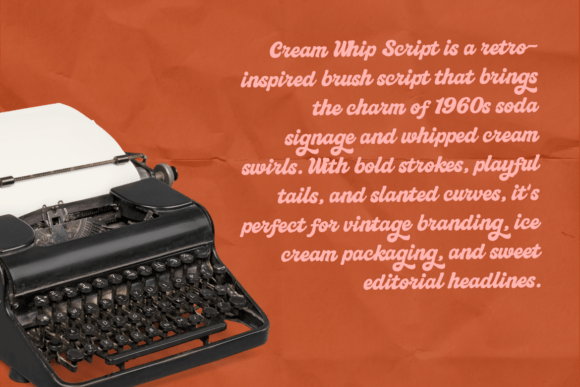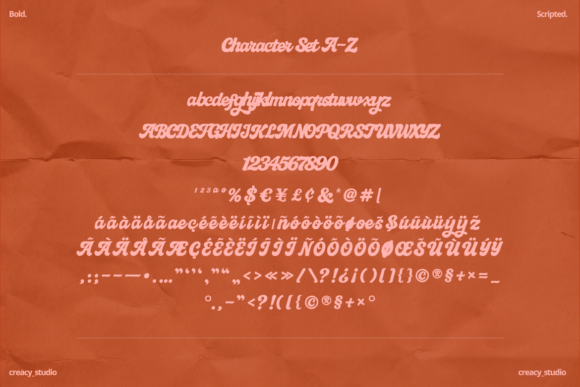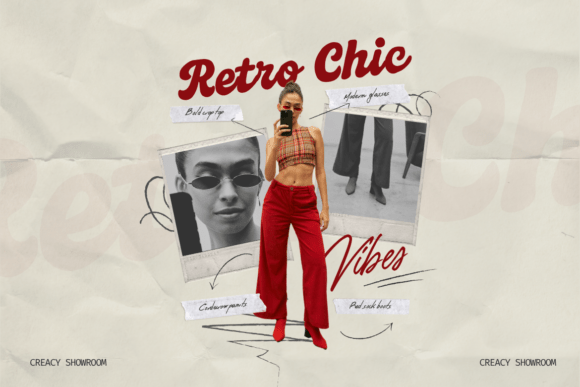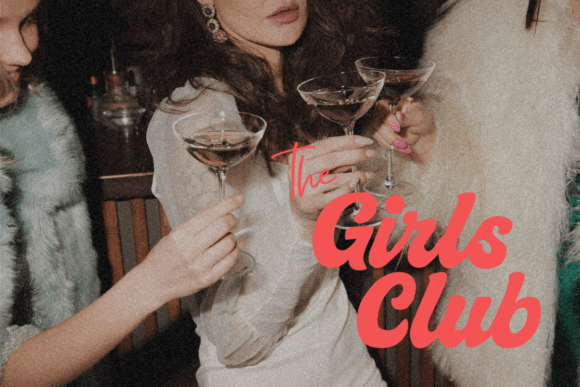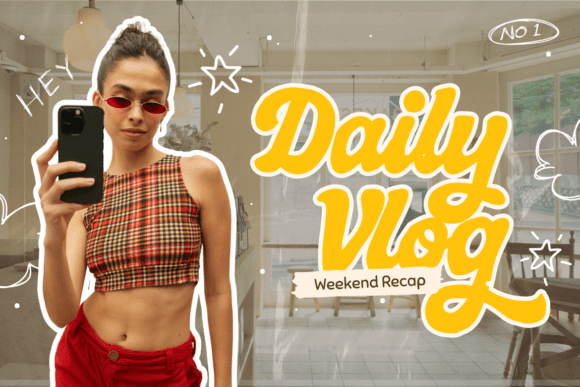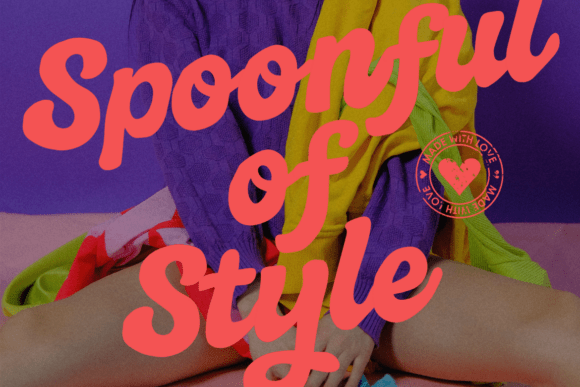
Introducing Cream Whip Script: The Retro Font that Adds a Touch of Vintage Charm to Your Designs
Are you looking for a font that can transport your designs back to the enticing era of vintage soda parlors and garnished pastries? Look no further than the Cream Whip Script, a bold, retro brush typeface that is sure to add a playful yet alluring essence to your creative pursuits. With its voluptuous curves, delicate ink traps, and affable rightward slant, this font is the perfect choice for designers and crafters who want to add a touch of nostalgia to their work.
A Font that Dances with Nostalgia
The Cream Whip Script font is designed to evoke the feeling of a bygone era, when life was a little sweeter and a little more carefree. Its robust strokes and terminal flourishes cultivate each character, birthing an exclusive rhythm and coziness that is seldom seen in common typefaces. Whether you’re working on a branding project, packaging design, logo creation, headline, or poster display, this font is sure to make a strong impression and leave a lasting impact on your audience.
A Meticulous Design that Exudes Finesse
One of the standout features of the Cream Whip Script font is its meticulous design. The delicate ink traps and fluid curves of the letters are reminiscent of whipped cream dollops, giving the font a lighthearted and playful feel. The affable rightward slant of the letters adds a sense of movement and energy to the font, making it perfect for designs that require a sense of dynamism and creativity.
A Font that is More than Just a Typeface
The Cream Whip Script font is more than just a typeface – it’s an experience. Its joyful undertone of retro secures its position as a superlative choice for branding delectable desserts, fashion brands, and lifestyle products. The font’s unique blend of playfulness and sophistication makes it perfect for designers and crafters who want to add a touch of whimsy to their work.
The Cream Whip Script font is versatile and can be used for a variety of design projects, including:
- Branding: Add a touch of vintage charm to your brand’s logo and packaging with this unique font.
- Packaging Design: Make your product stand out on store shelves with the Cream Whip Script font.
- Logo Creation: Create a memorable and eye-catching logo with this bold and playful font.
- Headlines: Add a touch of nostalgia to your headlines with the Cream Whip Script font.
- Poster Displays: Create eye-catching poster displays with this unique and attention-grabbing font.
Why Choose the Cream Whip Script Font?
There are many reasons why the Cream Whip Script font is a great choice for designers and crafters. Here are just a few:
- Unique and eye-catching design
- Perfect for adding a touch of nostalgia to your designs
- Versatile and can be used for a variety of design projects
- Robust strokes and terminal flourishes cultivate each character
- Delicate ink traps and fluid curves give the font a lighthearted and playful feel
In conclusion, the Cream Whip Script font is a bold, retro brush typeface that is sure to add a touch of vintage charm to your designs. With its unique blend of playfulness and sophistication, this font is perfect for designers and crafters who want to add a touch of whimsy to their work. Whether you’re working on a branding project, packaging design, logo creation, headline, or poster display, the Cream Whip Script font is a great choice. So why not introduce your designs to the enticing charm of the sixties with this amazing font?